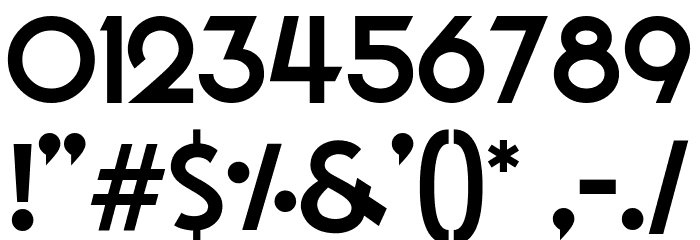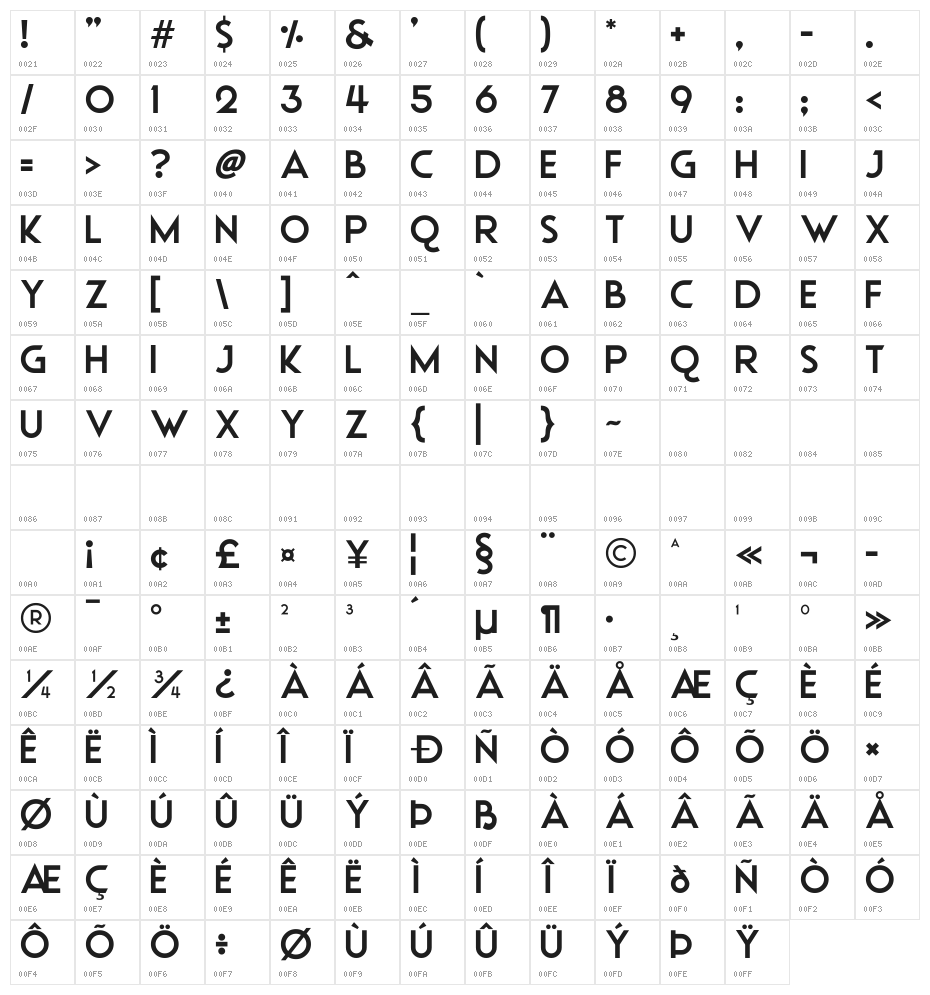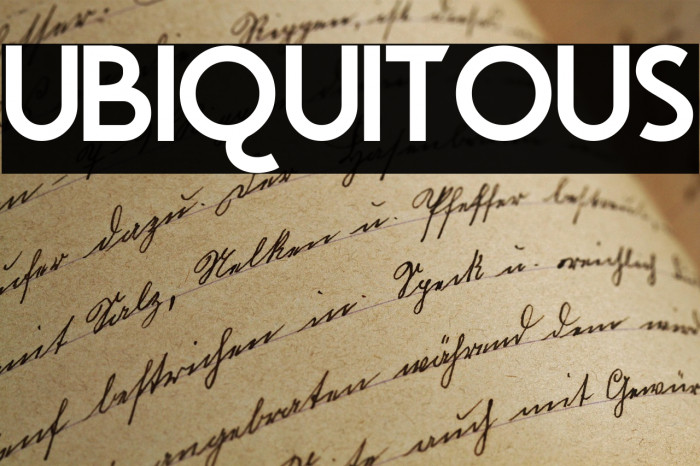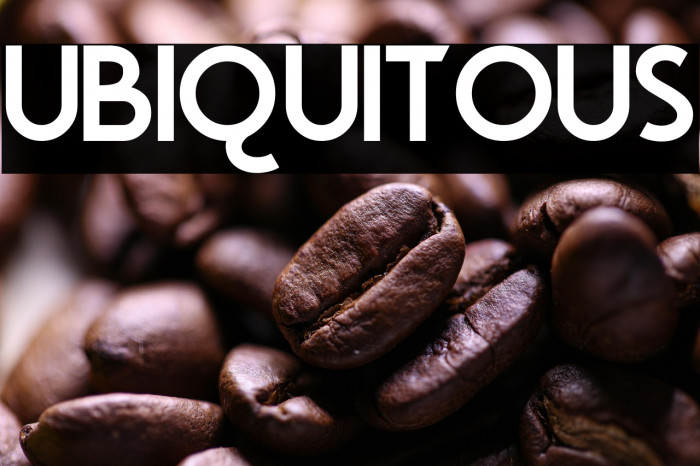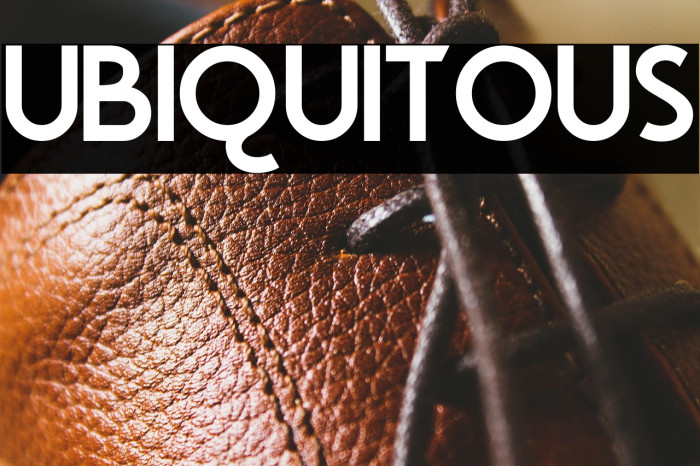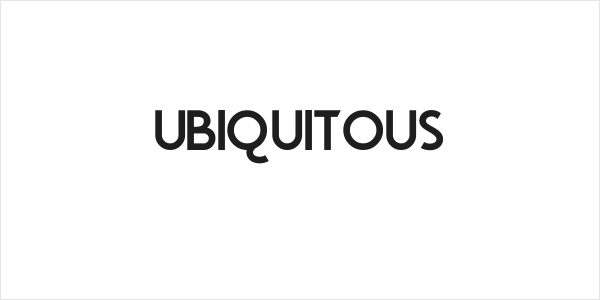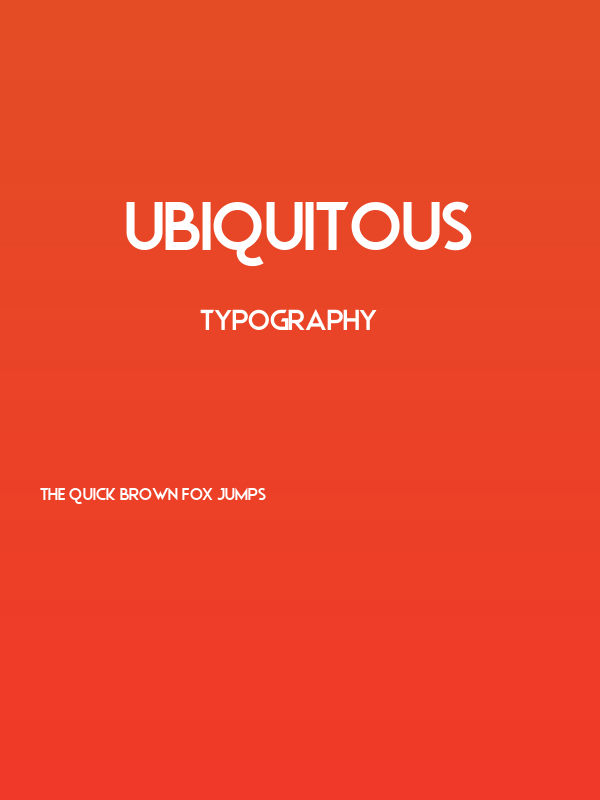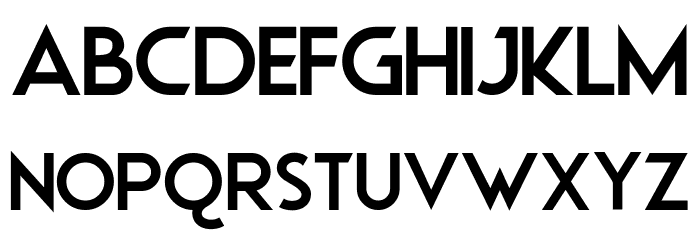
Ubiquitous Font
Ubiquitous Description
This font features a bold and geometric sans-serif style with clean lines and sharp angles. The uppercase letters are uniform in height, creating a cohesive and modern appearance. The lowercase letters maintain the same geometric precision, offering a consistent visual flow. Numbers are bold and easily legible, making them suitable for various applications. The special characters are designed to match the overall aesthetic, ensuring a harmonious look across all text elements. The font's strong presence makes it ideal for impactful headlines and branding.
| Proposed Projects | Ideal for branding, headlines, posters, and modern web design. |